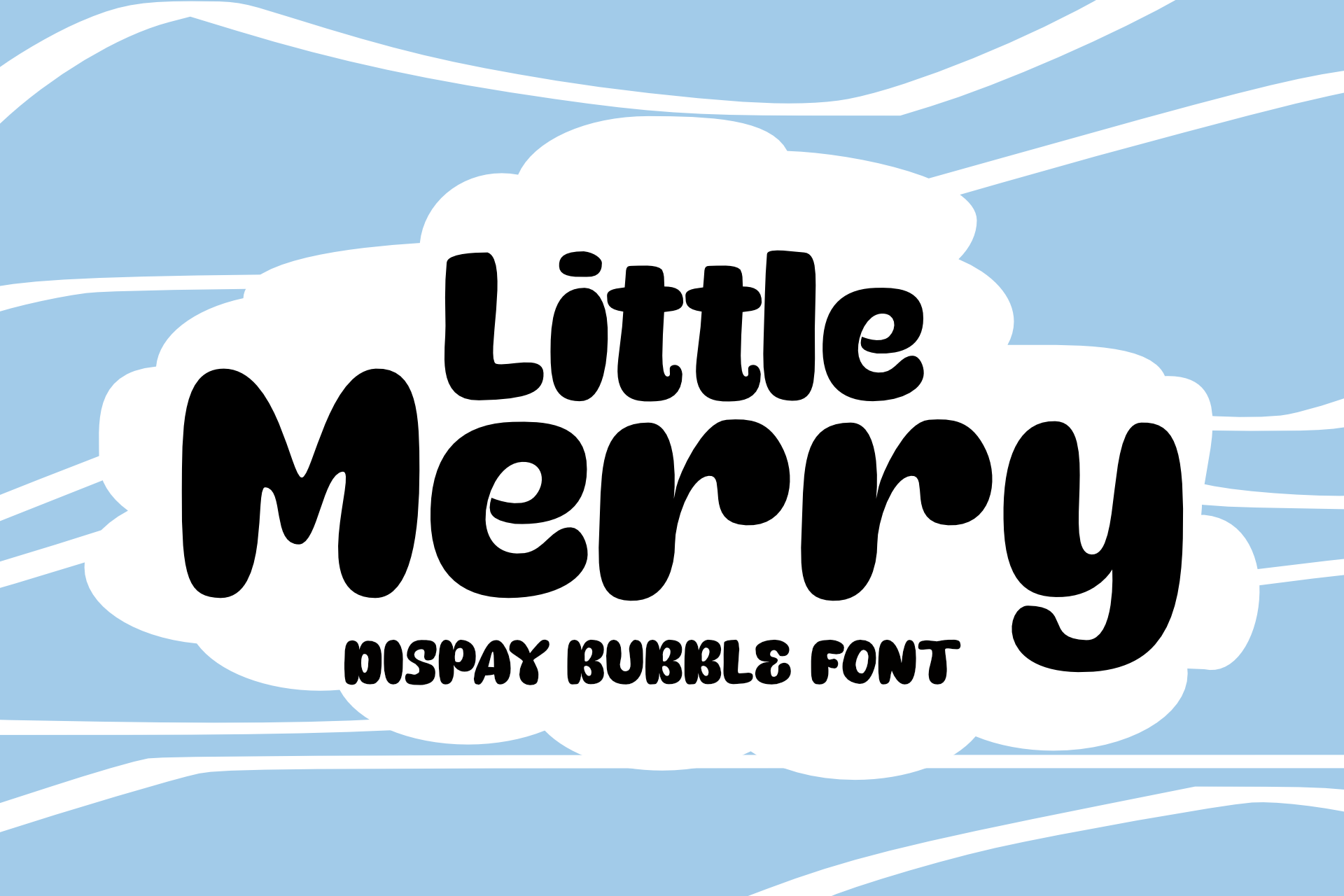
Little Merry | Bubble Fonts
Little Merry is a round bubble typeface perfect for any fun quirky design work! This font can be used for anything such as T-Shirt designs, phone cases, greeting cards, invitations, mugs and so much more! Get creative!